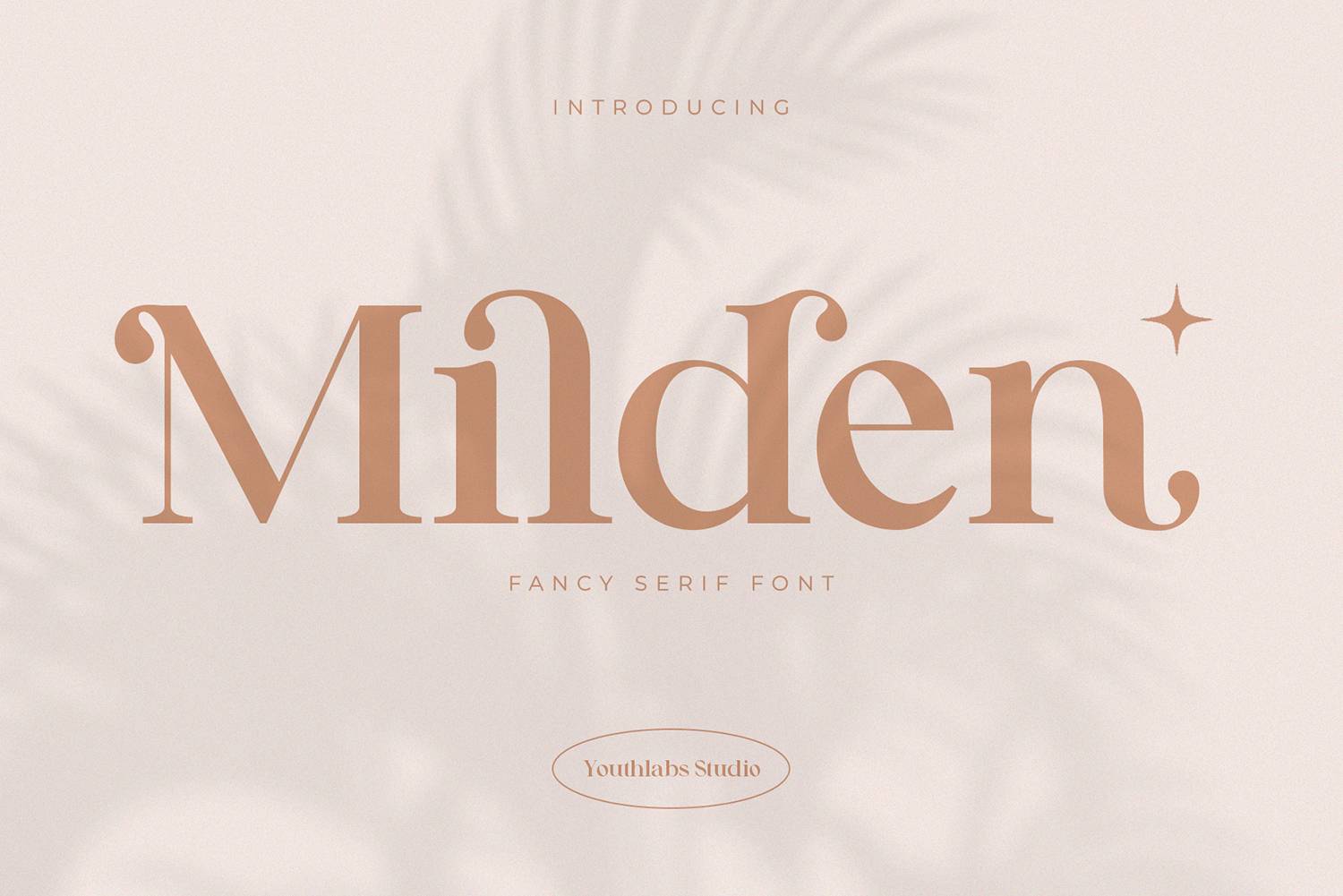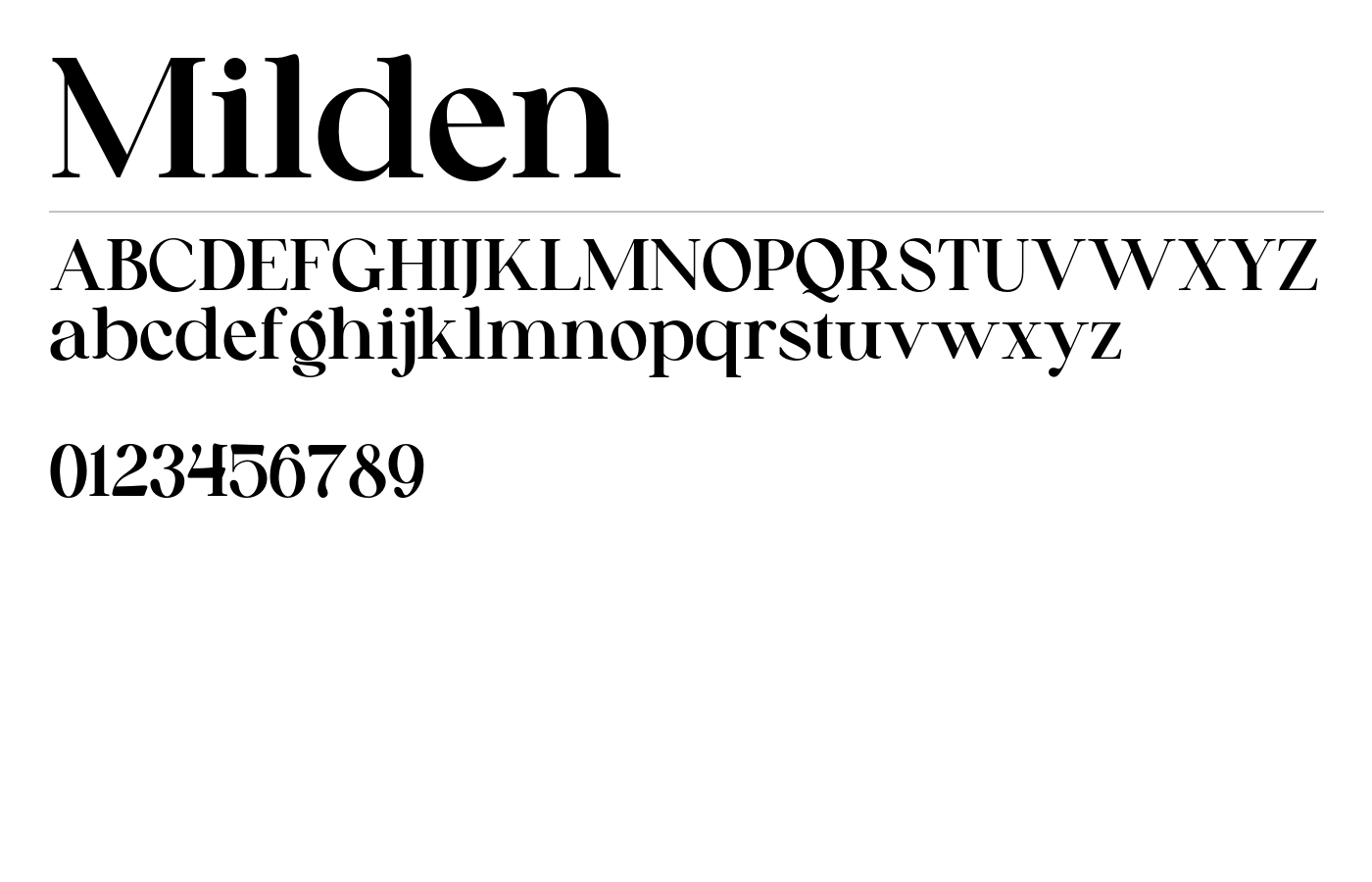
Milden is a refined serif font characterized by its elegant and high-contrast strokes, featuring delicate, bracketed serifs and a moderate x-height that exudes sophistication. Its classic yet contemporary style makes it perfect for luxury branding, editorial headlines, and fashion packaging where a touch of timeless elegance and clarity is essential.
Milden Font
About Milden Font